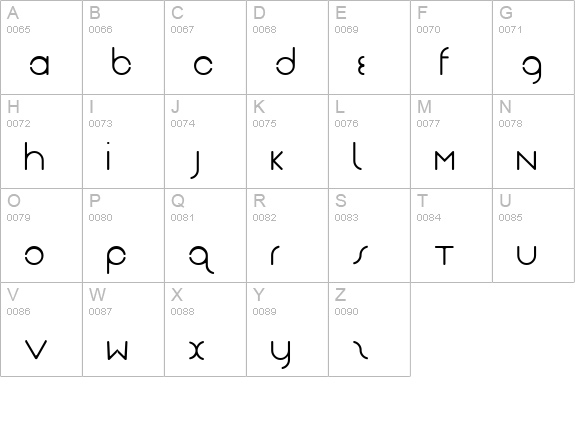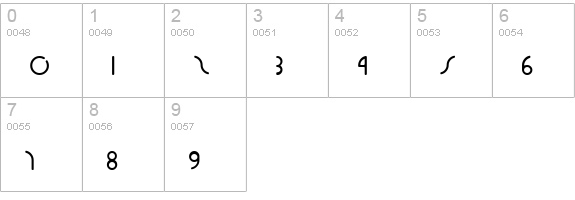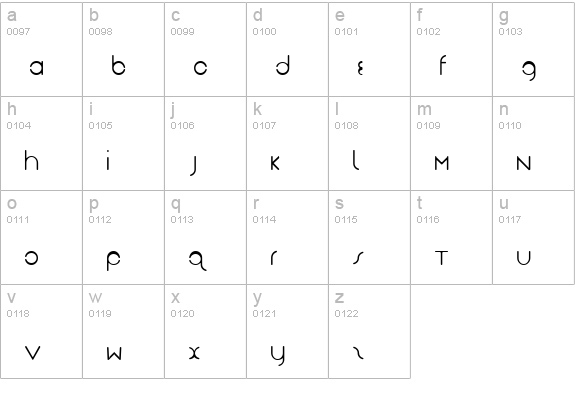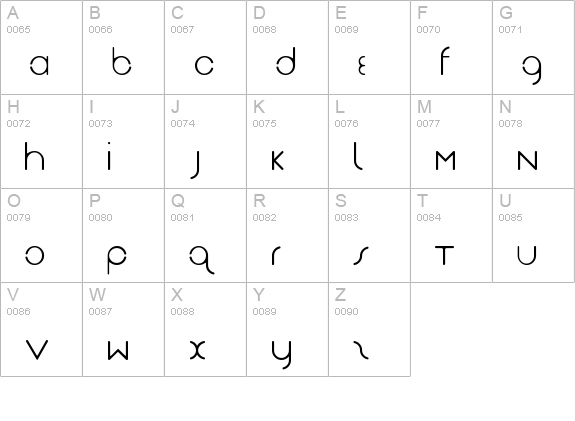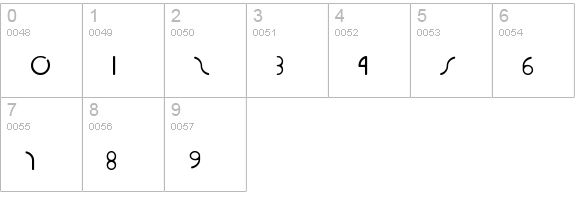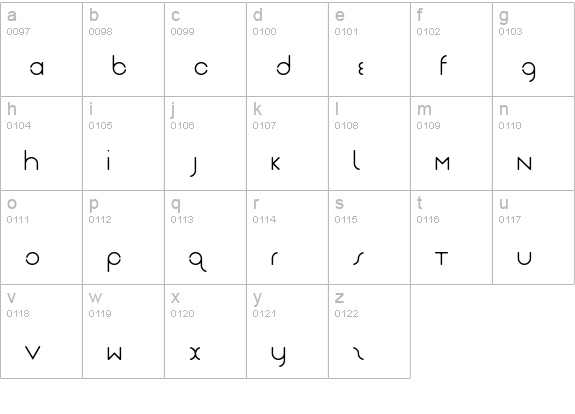
Smoke regular is the standard, neutral variant in the Smoke typeface family \xE2\x80\x94 well suited to general body text, paragraphs, and standard typographic work.
Smoke regular font is a stunning typeface that exudes sophistication and elegance. Its sleek and modern design makes it perfect for various design projects, from branding and logo design to editorial and web design. The smooth curves and clean lines of Smoke regular font create a sense of fluidity and grace, adding a touch of refinement to any project. With its versatile nature, Smoke regular font can be used in both large headlines and small body text, ensuring readability and legibility in any context. The well-balanced letterforms and generous spacing make for a pleasant reading experience, captivating the audience with its visual appeal. One of the best aspects of Smoke regular font is that it is freely available to download at FontsMarket.com. This means that designers, creatives, and individuals alike can access this remarkable font without any cost. Whether you are a professional designer looking for a new addition to your font library or an aspiring creator in need of a stylish typeface, Smoke regular font offers the perfect solution. Embrace the elegance and sophistication of Smoke regular font and elevate your design projects to new heights. Its free availability allows you to enhance your creativity without any financial constraints. Download Smoke regular font from FontsMarket.com today and discover the endless possibilities it holds for your next design endeavor.